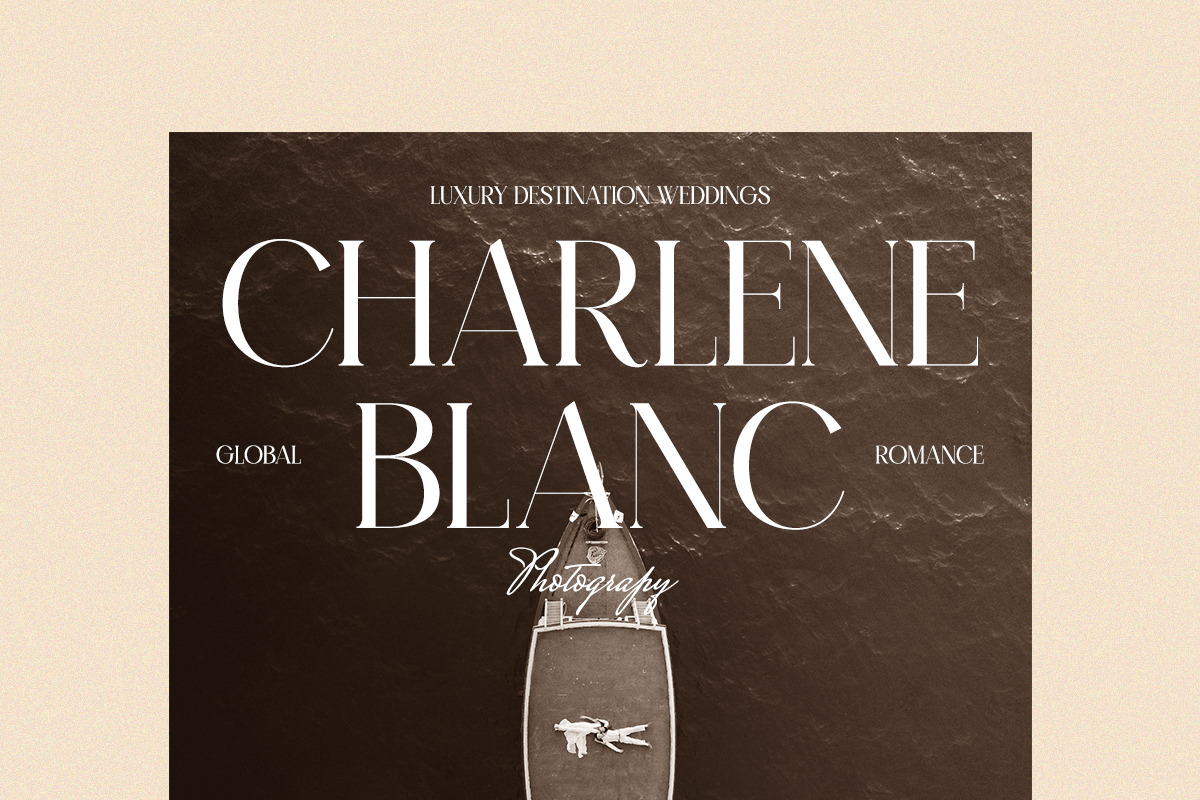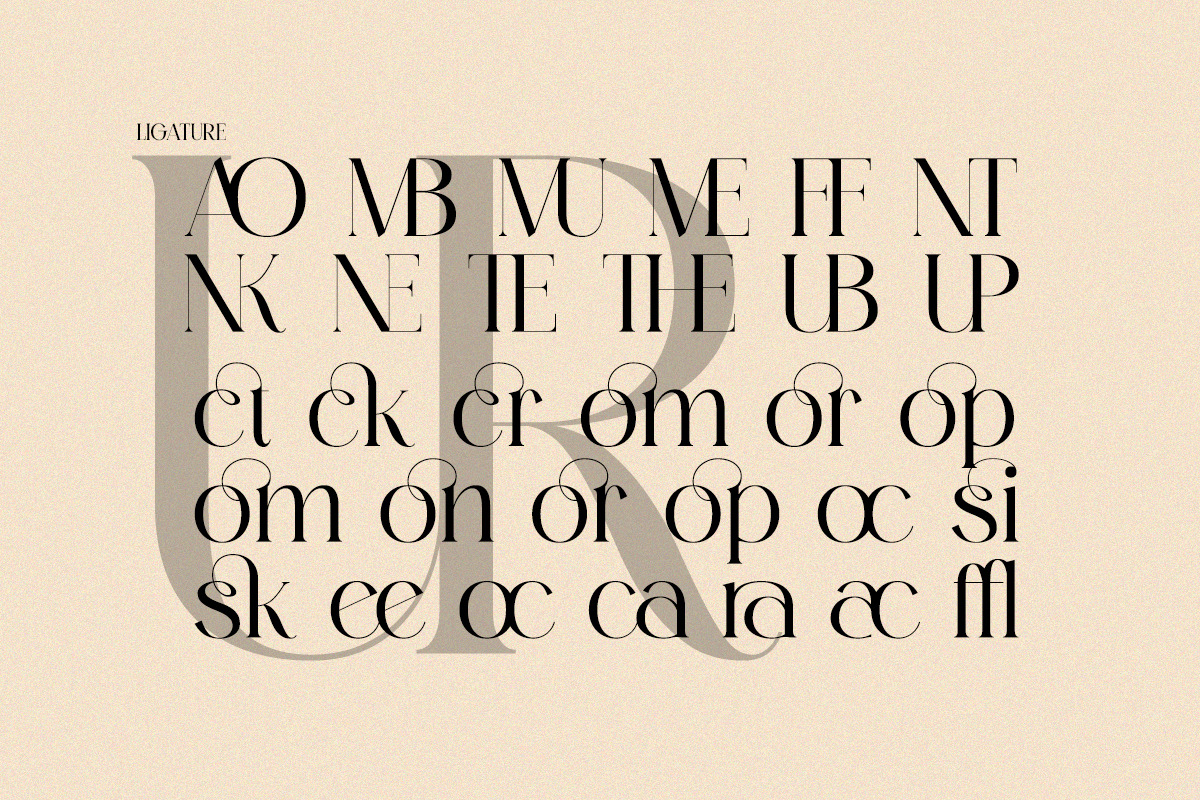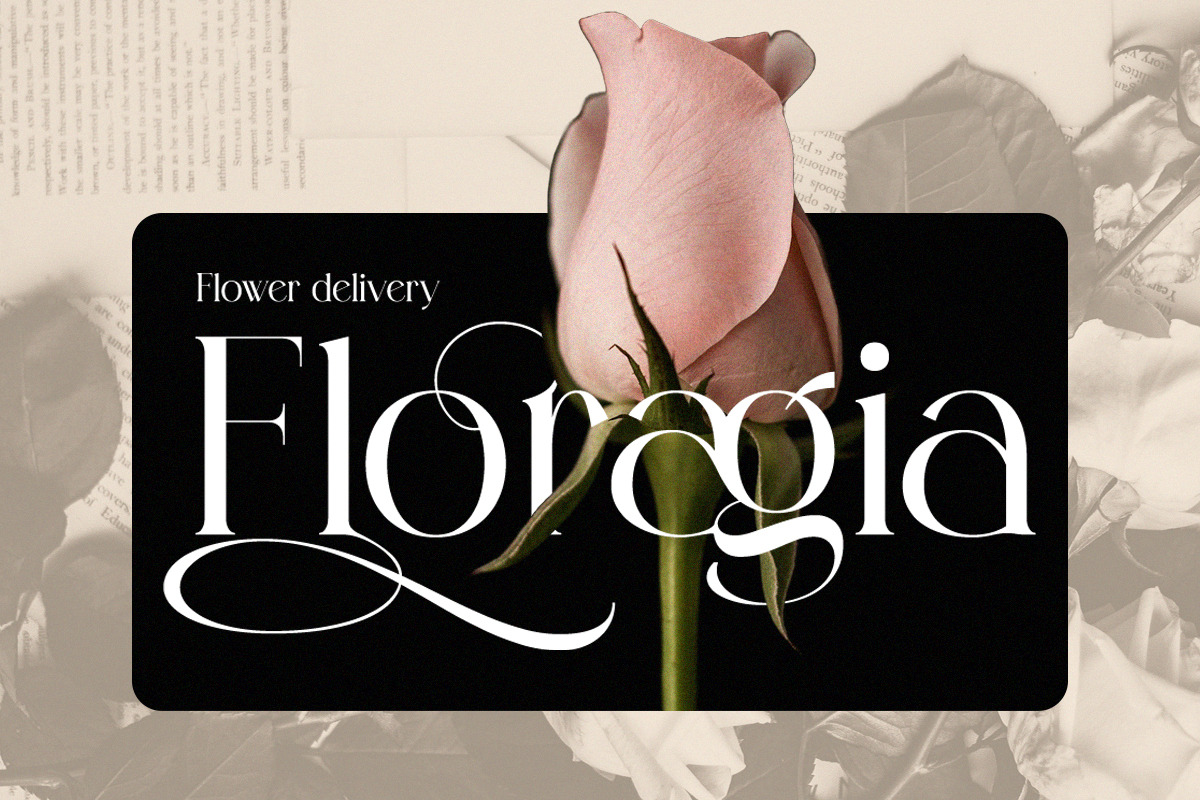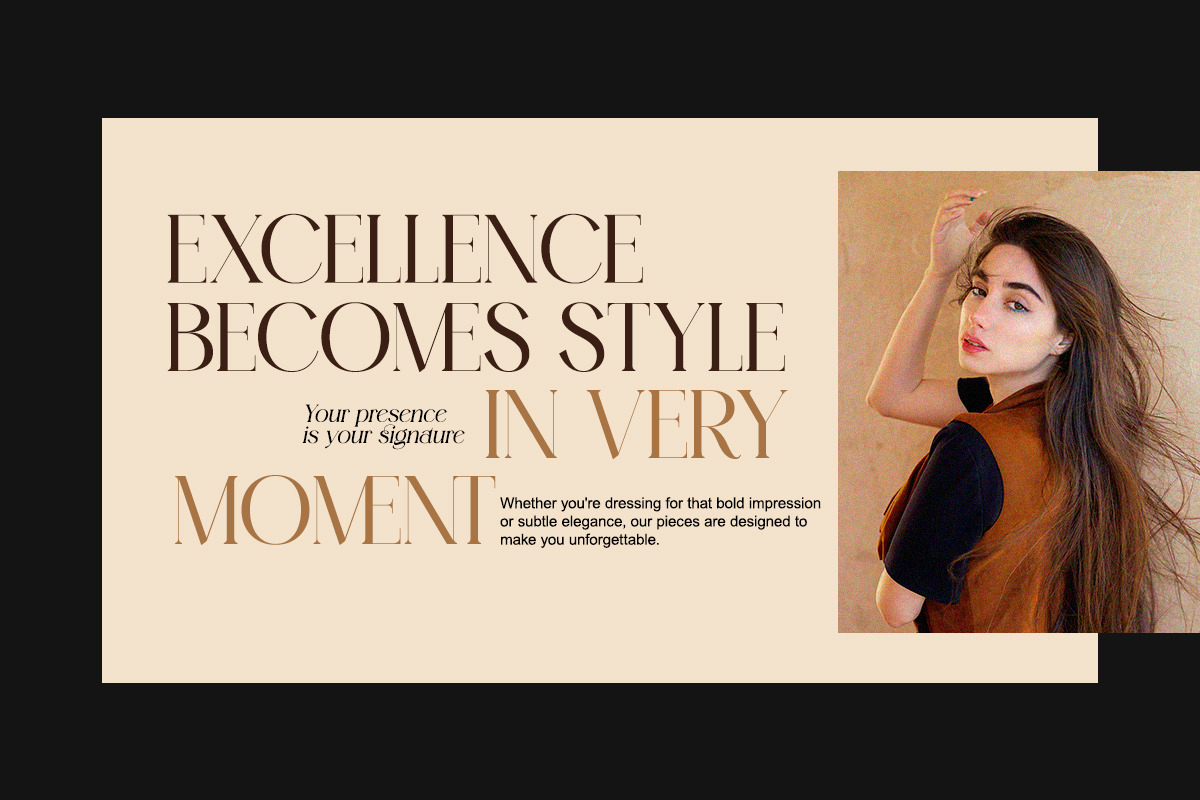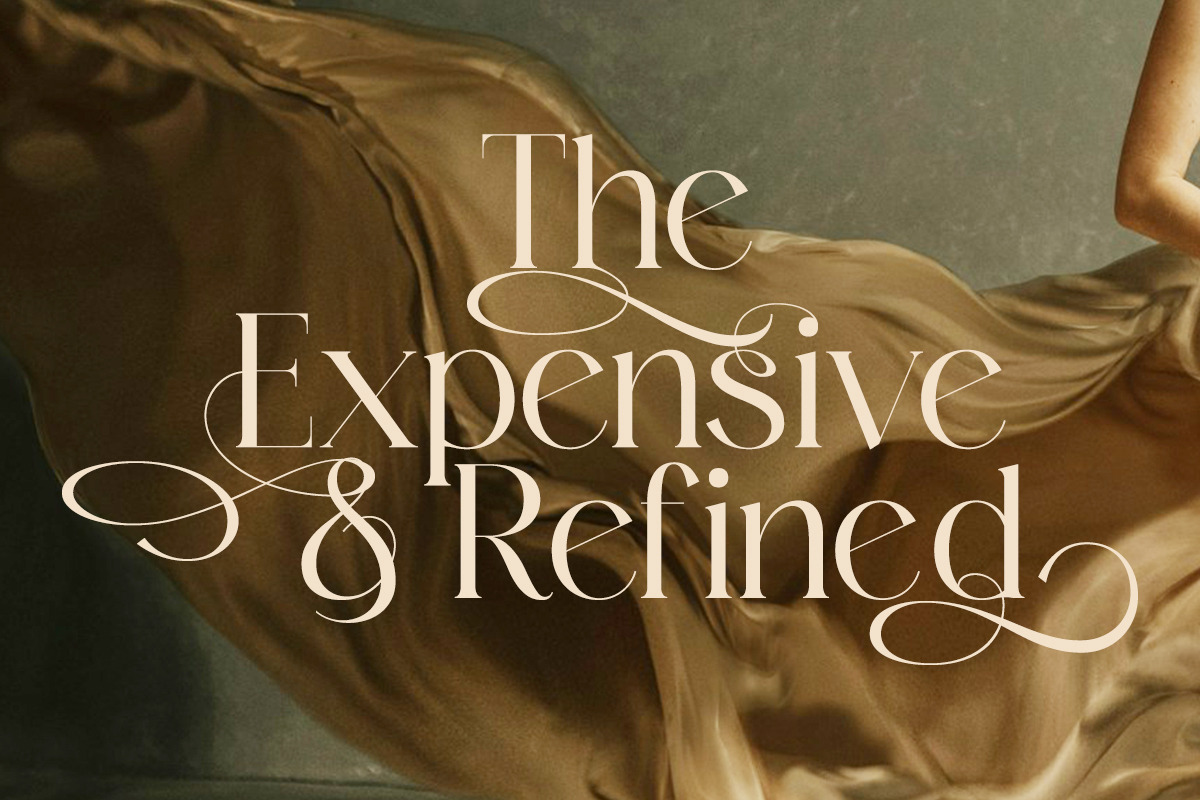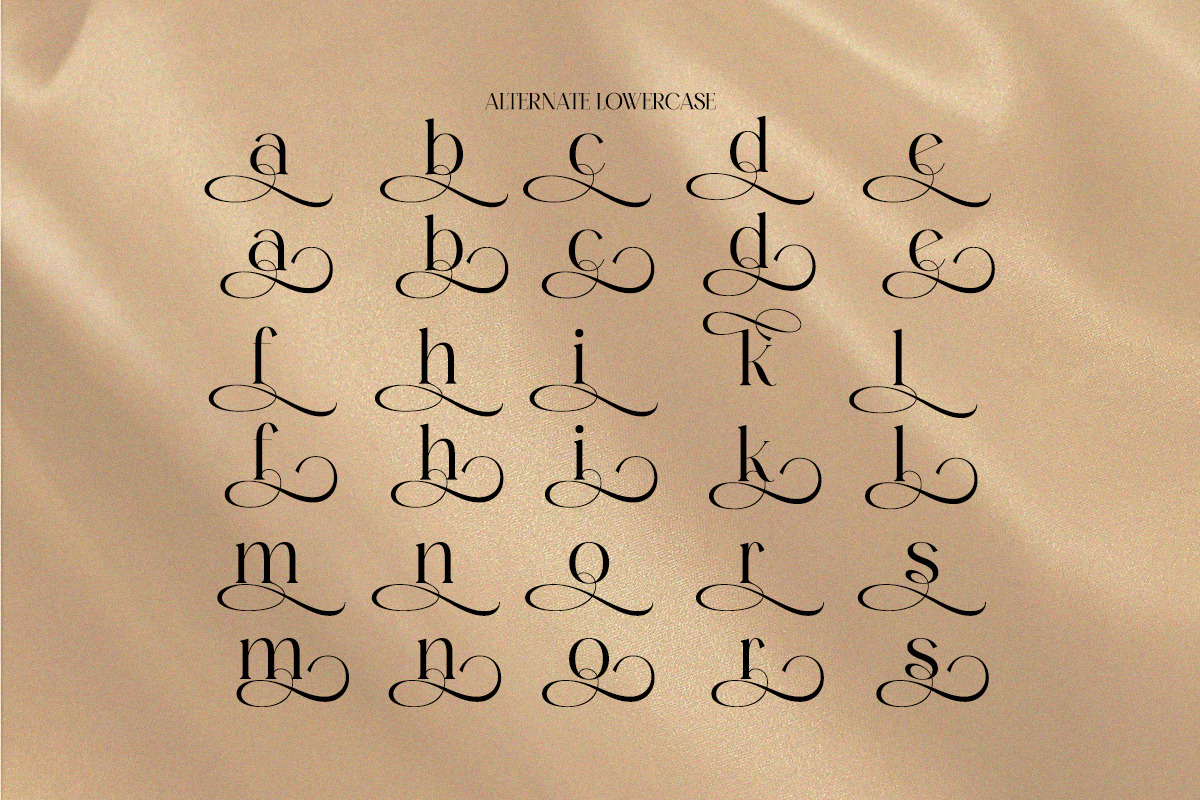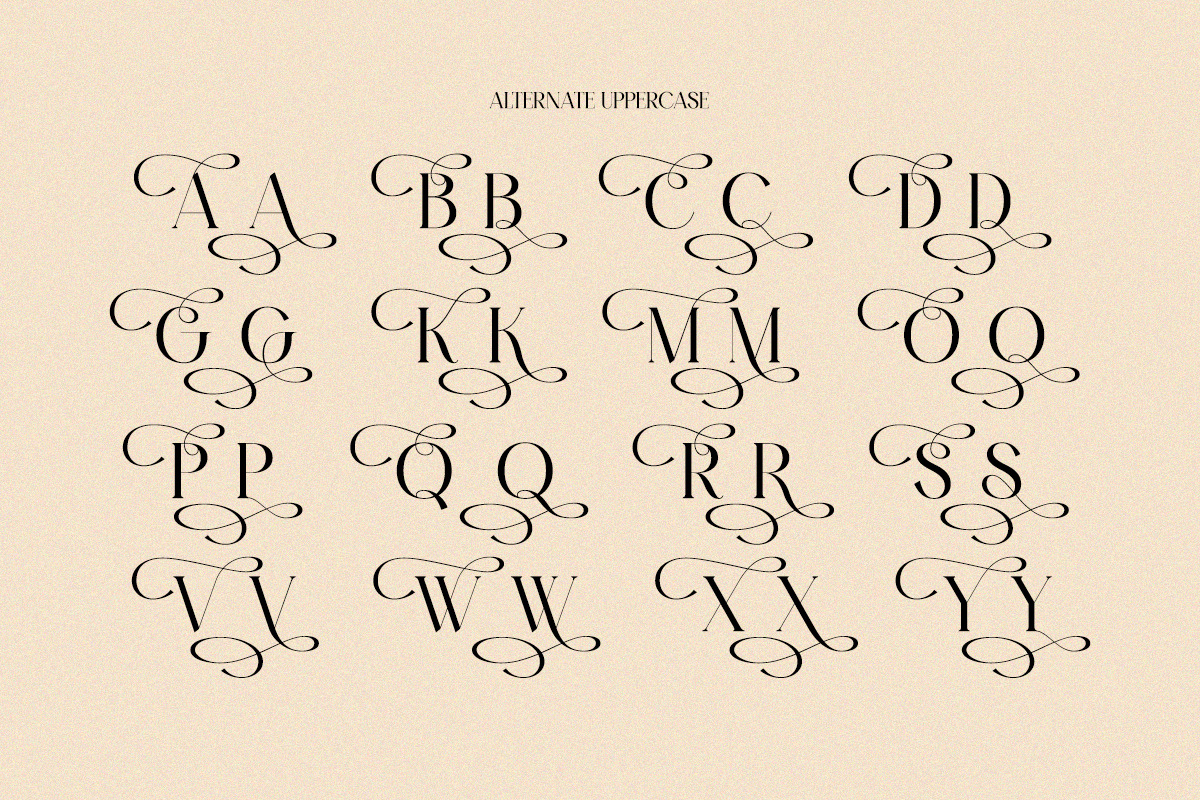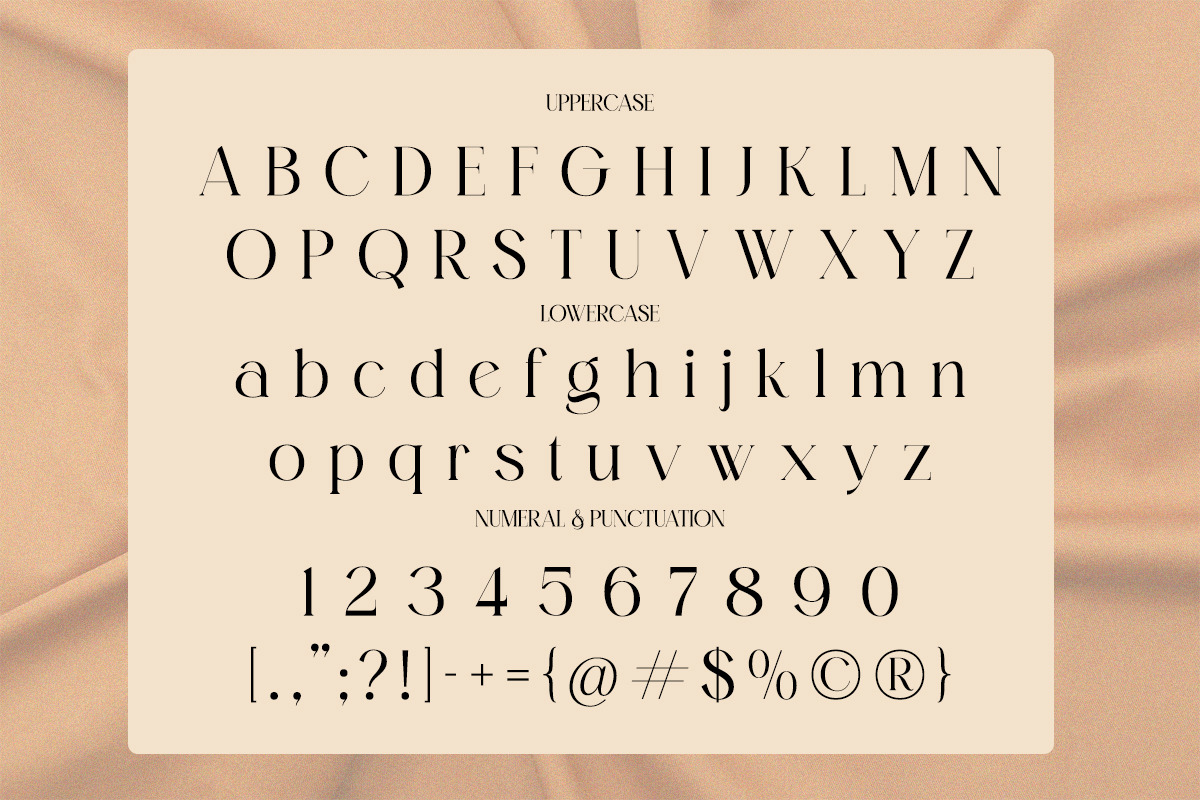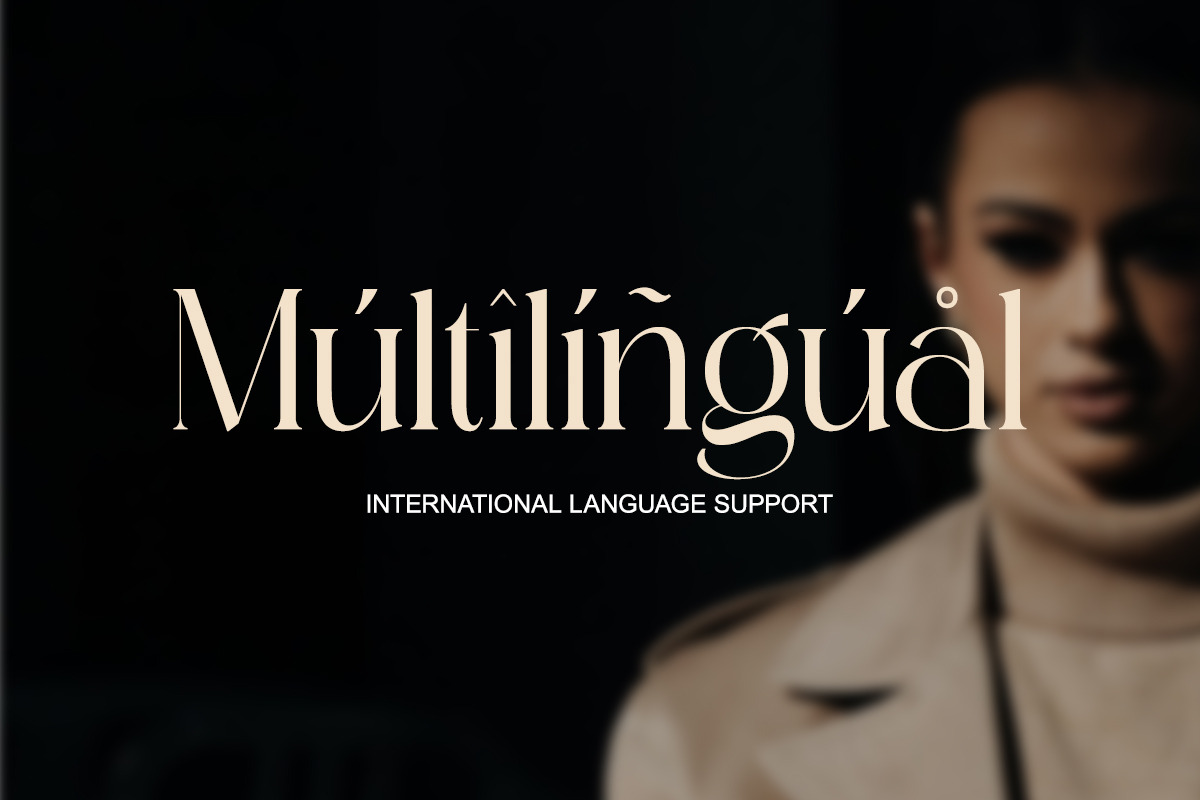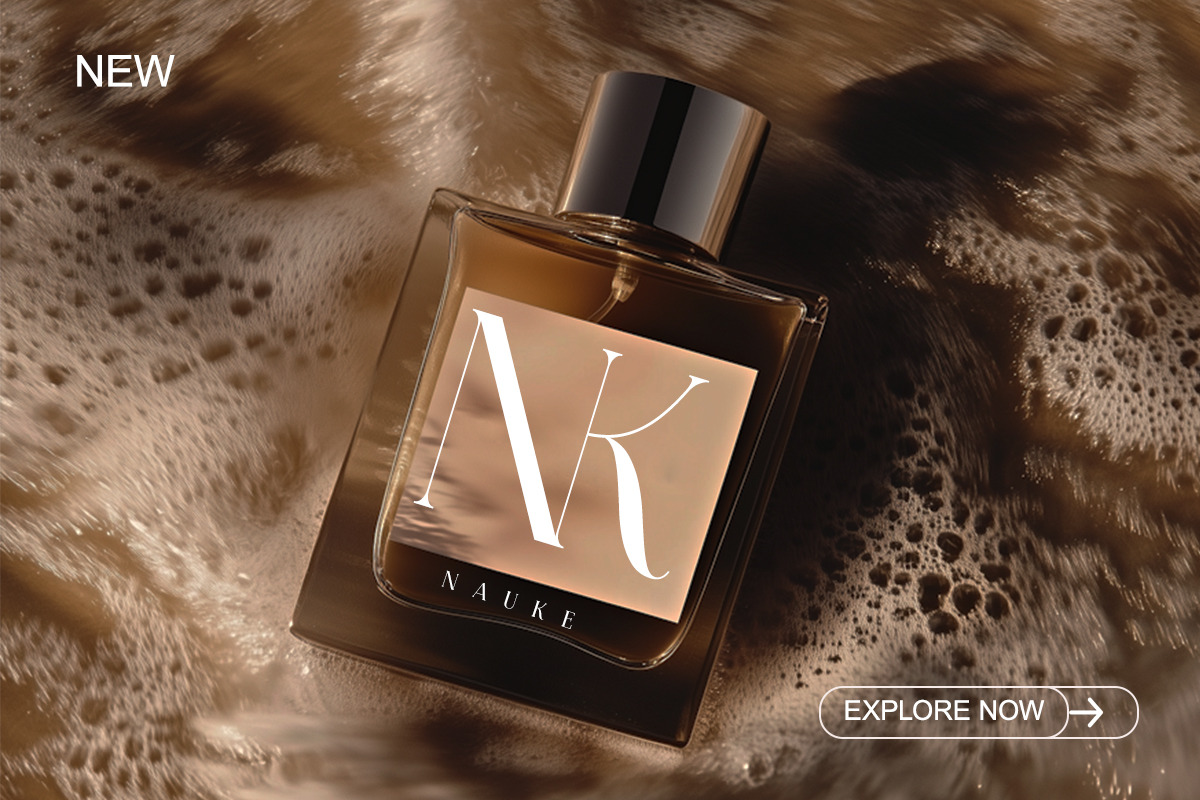
Lunabelle - Modern Elegant Luxury
Lunabelle is a modern luxury serif font with graceful swashes and timeless elegance.
Perfectly balanced between sophistication and beauty, Lunabelle is designed for premium branding, wedding stationery, fashion editorials, and boutique packaging. The stylish alternates and delicate ligatures make every design look exclusive and high-end.
- Regular & Italic
- Elegant swashes & ligatures
- High-contrast modern serif style
- Luxury brand logos
- Wedding invitations
- Editorial design
- Boutique packaging
- Fashion lookbooks
- Elegant typography projects
Add timeless luxury to your visual identity.